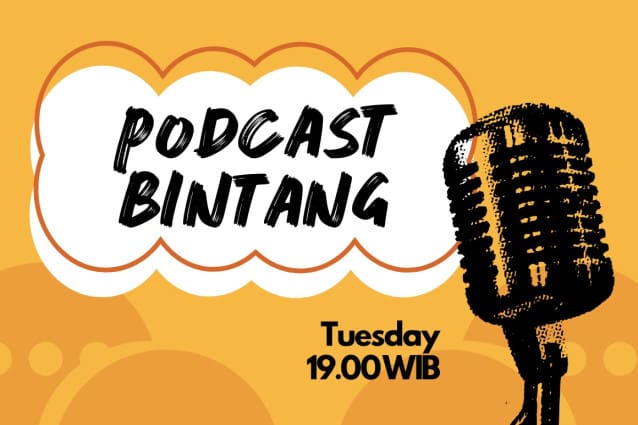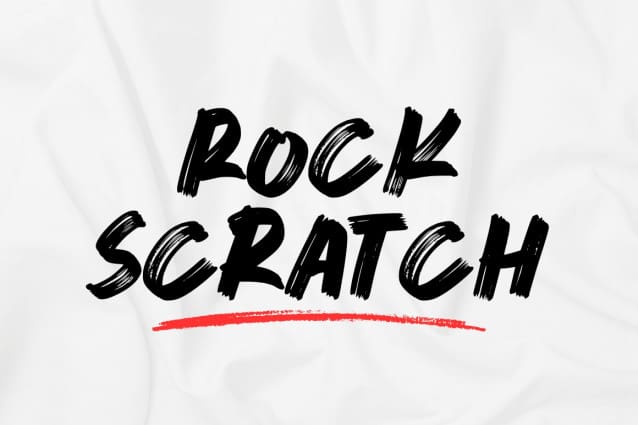
Rock Scratch Font
Rock Scratch Font is a bold and expressive handbrush font that captures raw energy and attitude. Perfect for posters, logos, apparel, and edgy designs needing a dynamic and handcrafted touch. Unleash creativity with RockScratch!